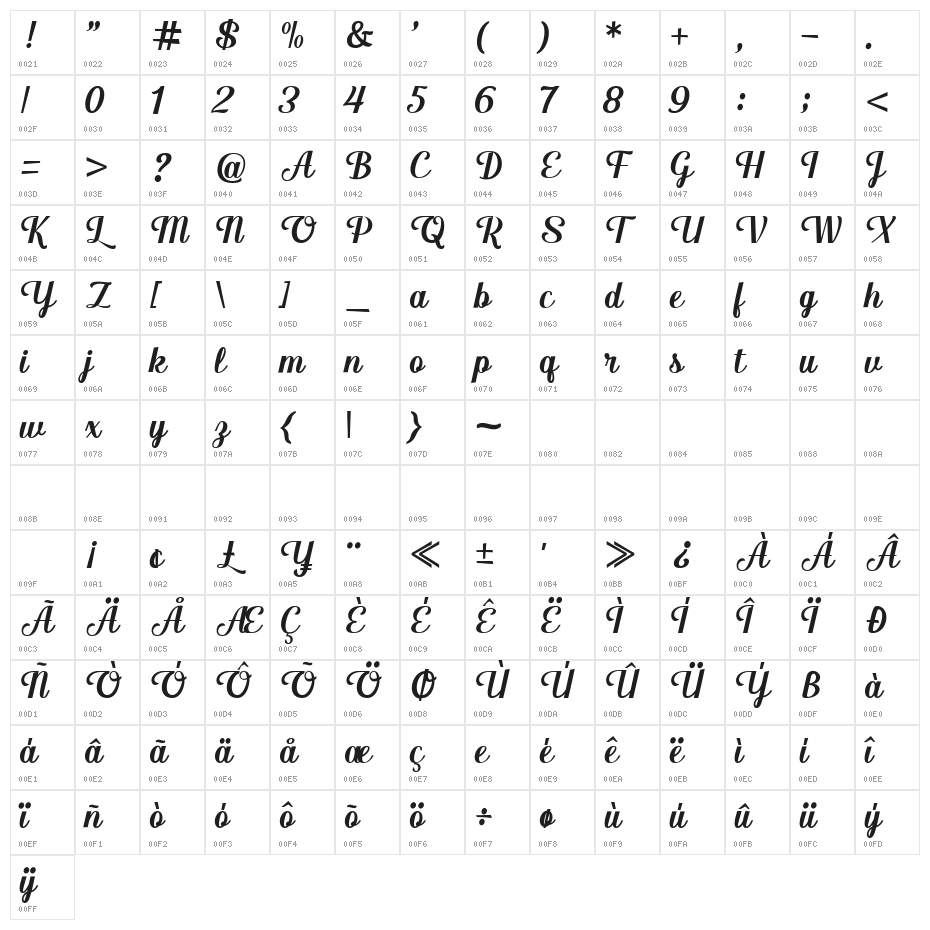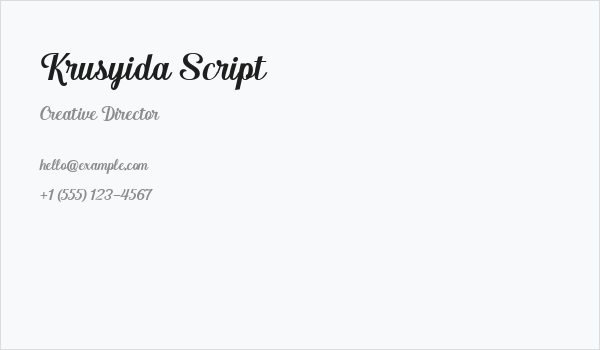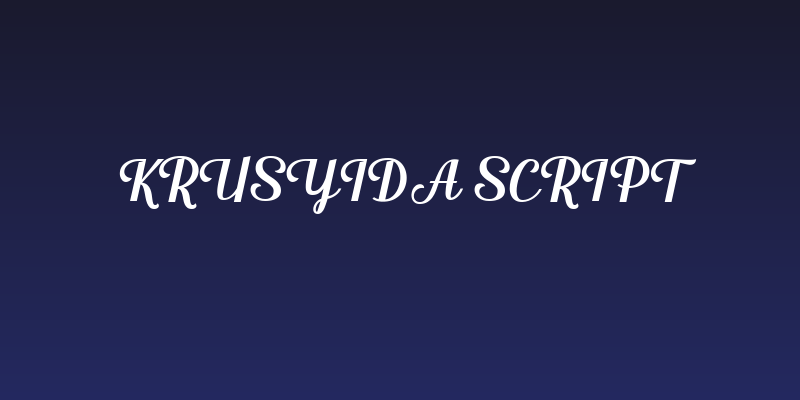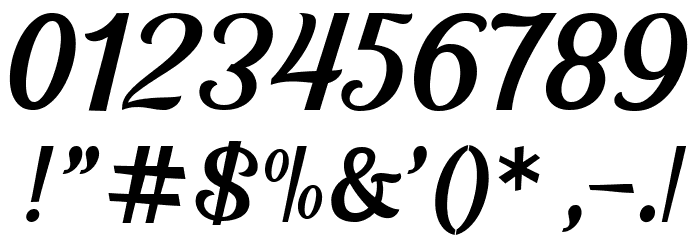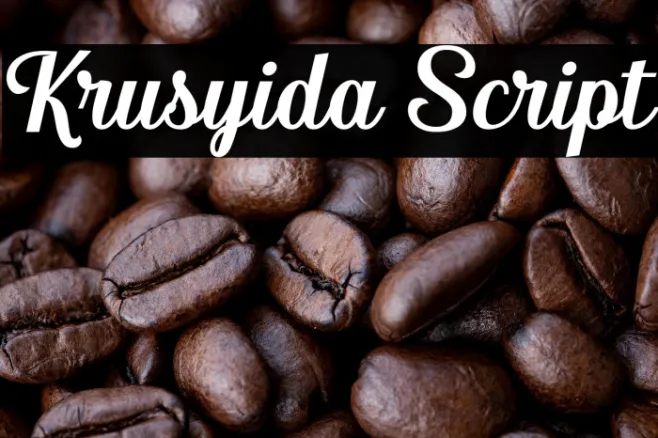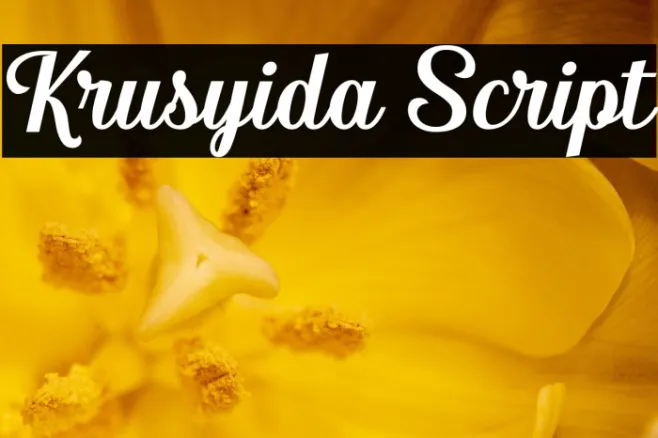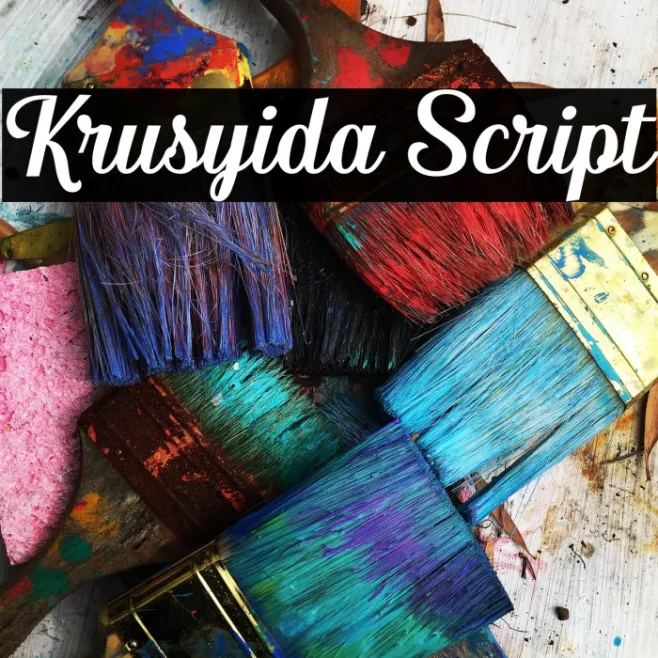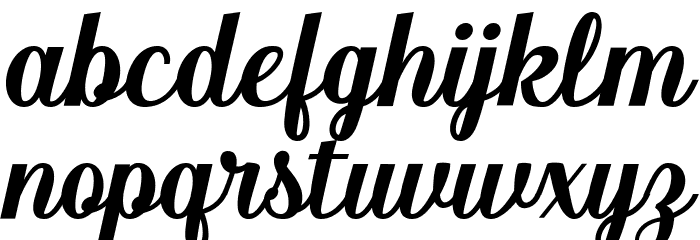
Krusyida Script Font
Krusyida Script Description
This font exudes a classic script style with a modern twist, characterized by its elegant and flowing letterforms. The uppercase letters are slightly more ornate, with gentle curves and flourishes that add a touch of sophistication. The lowercase letters maintain a consistent flow, enhancing readability while preserving the script's decorative nature. The numerals are well-balanced, matching the overall style of the alphabet. Special characters are designed to complement the letterforms, ensuring a cohesive look across all text. This font is ideal for projects that require a touch of elegance and style.
| Proposed Projects | Ideal for wedding invitations, greeting cards, branding, and elegant packaging designs. |